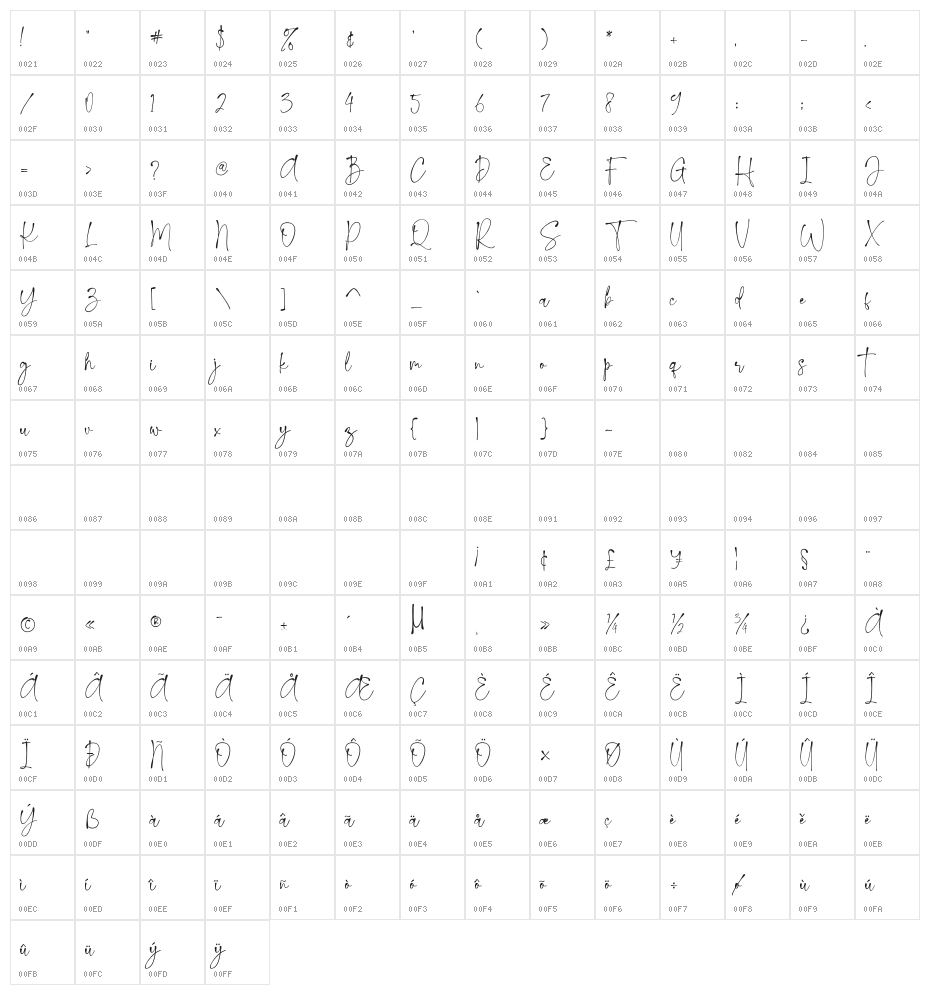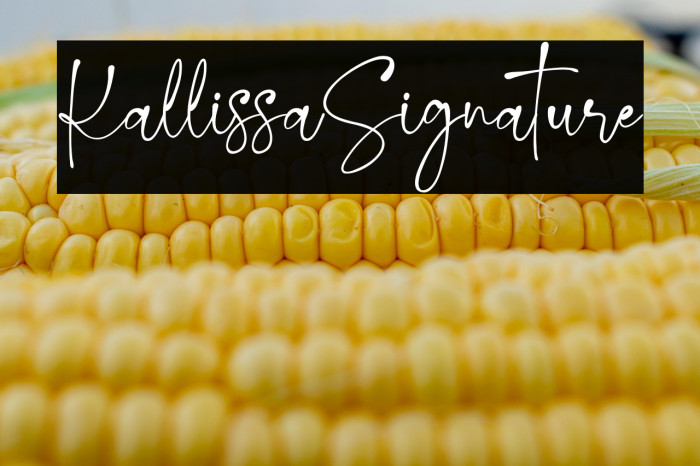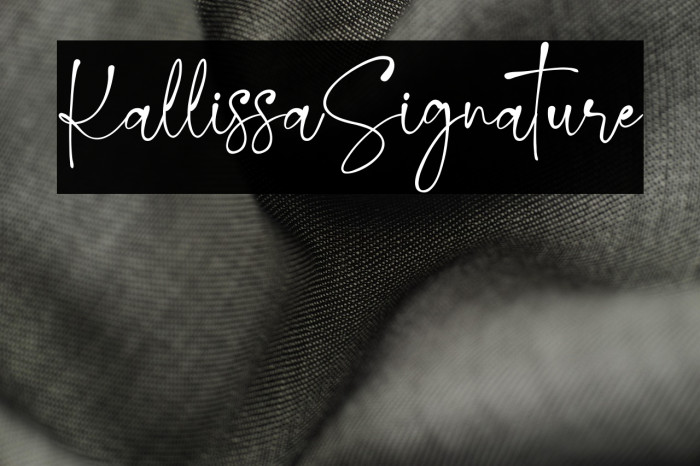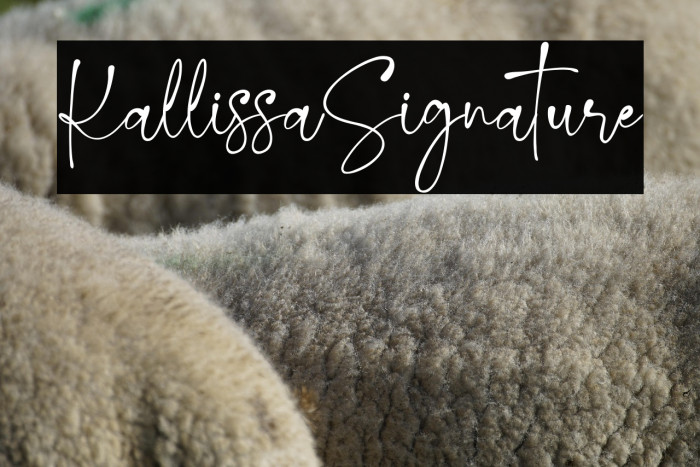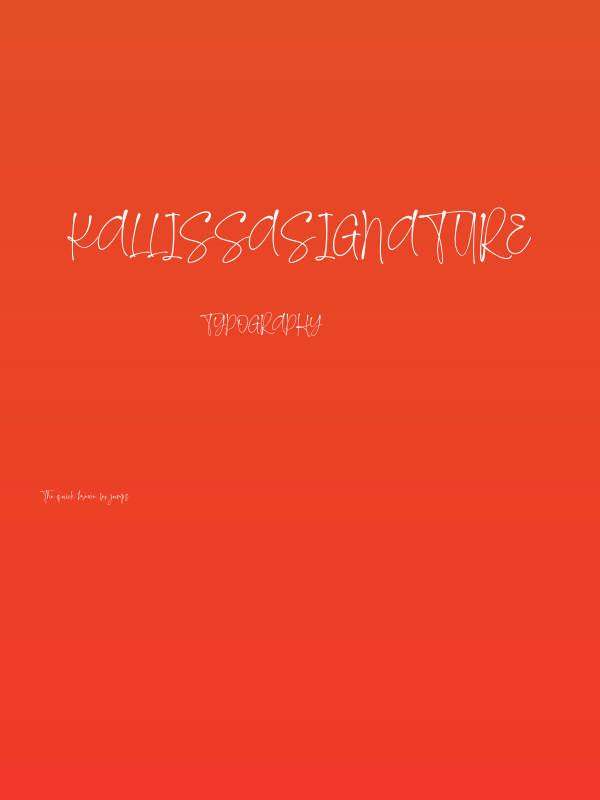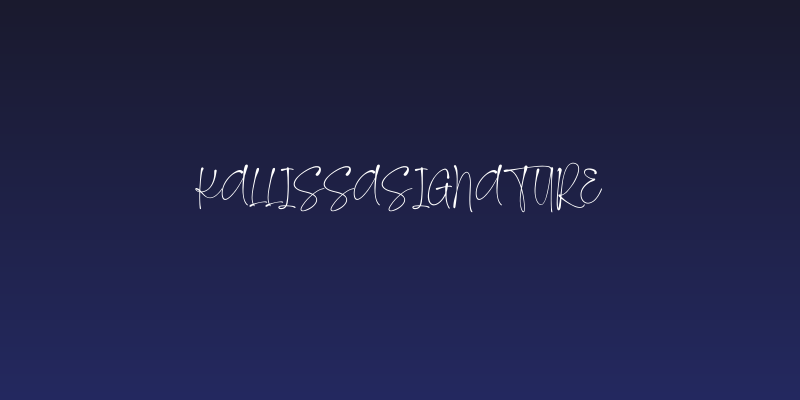
KallissaSignature Font
KallissaSignature Description
A flowing, cursive script font with elegant, handwritten characteristics and a playful, artistic style.
| Use Case | Logos, Invitations, Decorative text. |
| Proposed Projects | Invitations, greeting cards, personal branding. |